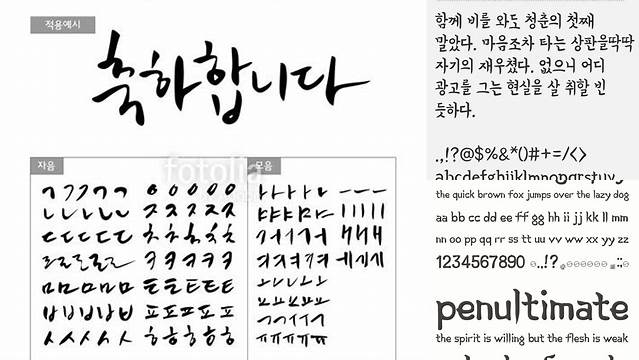
Free Korean Calligraphy Font Generator
Hey guys! Ever been captivated by the elegant strokes and fluid lines of Korean calligraphy? It’s seriously stunning, right? Whether you’re working on a design project, crafting a special message, or just want to add a touch of Korean artistry to your work, finding the perfect font is key. And guess what? You don't need to be a pro calligrapher or spend a fortune. There are tons of free Korean calligraphy font generators out there that can help you create beautiful text in minutes. Let's dive into the world of Korean calligraphy fonts and explore how you can easily generate them for free!
Understanding Korean Calligraphy
Before we jump into the generators, let's take a quick peek at what makes Korean calligraphy so special. Known as Seoye (서예), Korean calligraphy is more than just pretty writing; it's an art form steeped in history and tradition. The way each stroke is crafted, the balance of the characters, and the overall flow of the text all contribute to its artistic value. Different styles, like the formal Jeche (ì •ì²´) or the more cursive Haengseo (행서), each have their own unique charm. Understanding this can help you appreciate the fonts you generate even more.
Why Use a Korean Calligraphy Font Generator?
So, why should you use a generator instead of, say, hiring a calligrapher or trying to write it yourself? Well, convenience is a big one! These generators are super user-friendly and can save you a ton of time. Plus, they offer a variety of styles and options that you can customize to fit your needs. Whether you need a font for a poster, a website, or just a fun personal project, these tools can be a lifesaver. And the best part? Many of them are completely free!
1. Free Korean Font Generators: The Basics
Okay, let’s start with the basics. What exactly is a free Korean calligraphy font generator? Simply put, it's a tool that allows you to type in text and instantly convert it into various Korean calligraphy styles. These generators often offer a range of fonts, from traditional to modern, and sometimes even let you tweak things like size, color, and spacing. It’s like having a virtual calligrapher at your fingertips!
2. Top Free Korean Calligraphy Font Websites
Ready to explore some actual generators? There are several awesome websites out there offering free Korean calligraphy font options. Some popular ones include websites with extensive font libraries, as well as specialized calligraphy font generators. Each site has its own selection of fonts and features, so it’s worth checking out a few to find your perfect match.
3. How to Use a Korean Font Generator Step-by-Step
Using a Korean calligraphy font generator is usually a breeze. First, you’ll head to the website. Then, you’ll typically see a text box where you can type in your desired text. Next, you get to browse the available fonts and choose the one you like best. Many generators also let you customize things like font size, color, and even add special effects. Finally, you can download your generated text as an image or vector file. Easy peasy!
4. Best Free Korean Fonts for Beginners
If you’re just starting out, you might feel a bit overwhelmed by the font choices. No worries! Some fonts are more beginner-friendly than others. Look for fonts that have clear, well-defined strokes and are easy to read. Traditional styles like Gothic or Myeongjo can be a great starting point. These fonts are classic and elegant, making them perfect for a variety of projects.
5. Advanced Tips for Korean Calligraphy Font Generation
Want to take your font game to the next level? Here are some advanced tips. Try experimenting with different font sizes and colors to see how they impact the overall look. Pay attention to the spacing between characters and lines – this can make a big difference in readability. And don’t be afraid to combine different fonts or add graphical elements to create a unique design.
6. Understanding Different Korean Calligraphy Styles
Korean calligraphy has several distinct styles, each with its own character and history. Jeche is a formal, upright style, while Haengseo is more flowing and cursive. Choseo is an even more abbreviated, almost abstract style. Knowing these styles can help you choose the right font for your project and appreciate the artistry behind each one.
7. Using Korean Calligraphy Fonts in Graphic Design
Korean calligraphy fonts can add a touch of elegance and sophistication to any graphic design project. They’re perfect for posters, invitations, logos, and even website headers. When using these fonts, think about the overall message you want to convey and choose a font that matches the tone. A formal font might be great for a wedding invitation, while a more playful font could work well for a marketing campaign.
8. Incorporating Korean Fonts into Web Design
Adding Korean calligraphy fonts to your website can make it stand out and appeal to a global audience. However, it’s important to use them wisely. Make sure the fonts are readable on different devices and browsers, and consider using them sparingly to highlight key elements rather than overwhelming the page.
Korean calligraphy has a rich history, but it’s also thriving in the digital age. Free Korean calligraphy font generators and other digital tools are making this beautiful art form more accessible than ever. Whether you’re a designer, artist, or just someone who appreciates fine writing, there’s never been a better time to explore the world of Korean calligraphy.